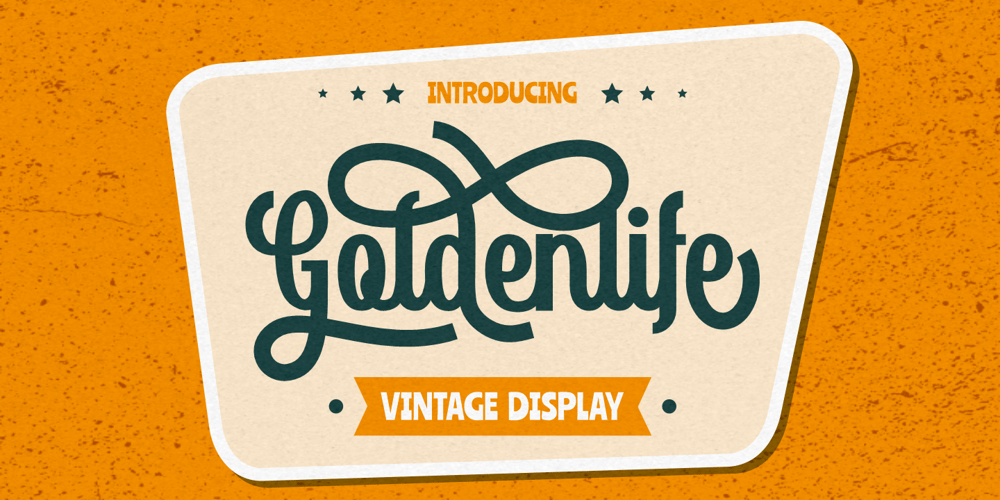
Goldenlife Font Family was designed by Putra Novembria Candra Kusuma and published by Putracetol. Goldenlife contains 1 styles and family package options. Goldenlife is a vintage display typeface. This font was inspired by classic vintage signs. It come with uppercase, lowercase, various alternates, numbers, punctuation and multi-lingual support.Goldenlife is great for any kind of display purpose from logos, t shirts, apparel, handwritten quotes, product packaging, tittle headers, posters, merchandise, social media, labels, branding and greeting cards.